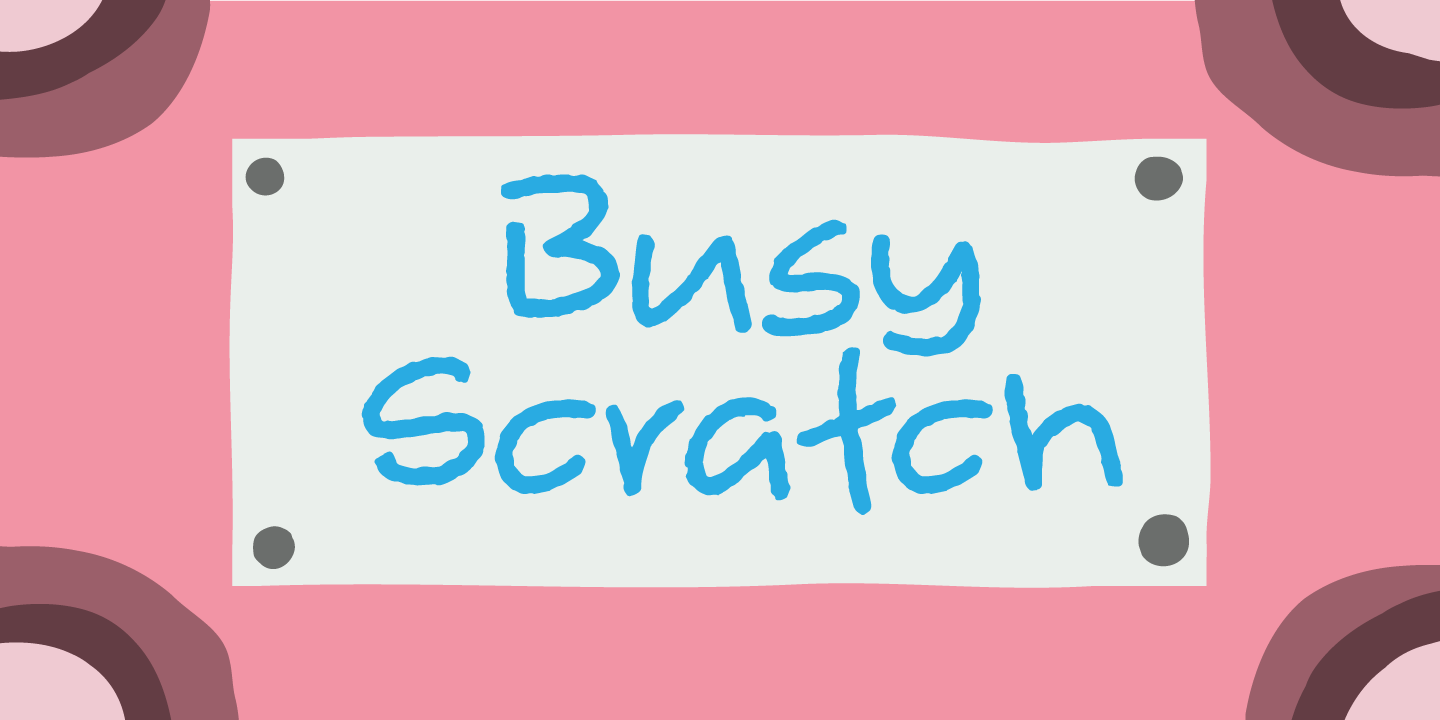
Busy Scratch Font is perfect for chaotic creative projects, energetic street art designs, vibrant youth branding, dynamic graffiti graphics, bustling urban marketing, frenzied artistic expressions, and hyperactive creative campaigns.
What makes Busy Scratch Font exciting is its frenzied energy and chaotic creativity, featuring scratched letterforms that capture the essence of urban hustle while delivering kinetic visual impact and street authenticity.
The Busy Scratch Font family includes Light, Regular, Medium, Bold, and Heavy weights, plus distressed variants and scratched alternates that enhance the font's chaotic character and urban possibilities.
Busy Scratch Font Free Download embodies the raw energy of urban creativity and the kinetic spirit of street culture through dynamic typography design. This energetic typeface captures the frenzied pace of city life and the spontaneous expression of street artistry, creating a vibrant visual language that speaks to urban artists and creative rebels who value authentic street culture, kinetic creativity, and the electrifying appeal of chaotic artistic expression. The font's scratched character and urban appearance make it perfect for street art collectives, youth brands, and creative organizations that want to communicate energy, authenticity, and the compelling appeal of urban creative culture.
Street art organizations and youth-oriented brands consistently select Busy Scratch Font for projects that require authentic urban credibility and energetic visual impact. The typeface's chaotic construction and street personality make it exceptionally effective for graffiti artists, youth marketing campaigns, and urban creative venues where street authenticity and kinetic energy are paramount. Each character has been designed with urban precision to ensure maximum impact across all street applications and creative environments.
The urban advantages of Busy Scratch Font extend beyond its chaotic appeal to include practical functionality for diverse street applications. The font maintains excellent readability in urban settings while delivering the distinctive character that creates memorable street experiences and connects with audiences seeking authentic urban creativity. Its comprehensive character set includes street symbols and urban elements that make it particularly suitable for street documentation and urban communication.
Graffiti collectives, youth marketing agencies, and urban creative organizations frequently choose Busy Scratch Font because of its ability to instantly convey street authenticity and urban sophistication. The typeface's chaotic aesthetic helps establish credibility in urban markets while appealing to audiences who value street culture, kinetic creativity, and the energizing experiences that come from authentic urban artistic expression and frenzied creative energy.